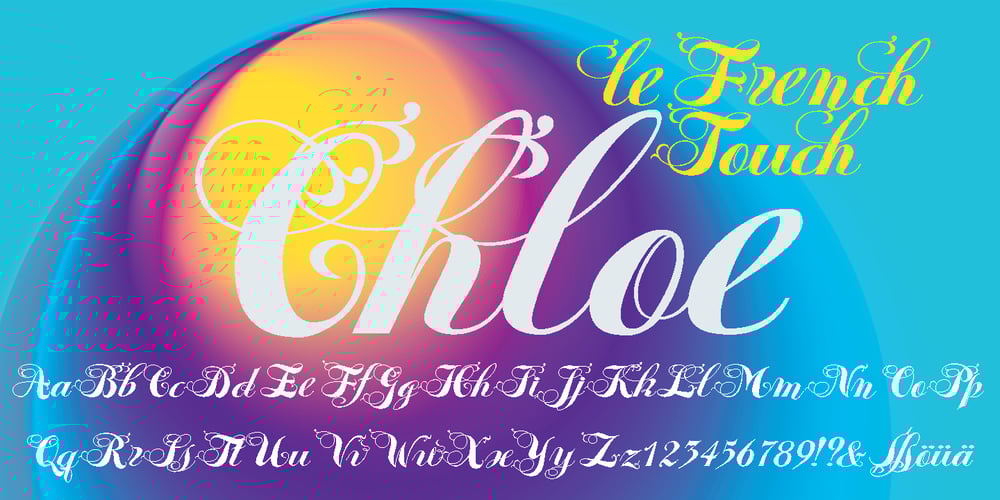
Chloe Font Family was designed by Gert Wiescher and published by Autographis. Chloe contains 1 styles and family package options. Chloe is a very dramatic script with high contrast between the up- and down-strokes. It is not really useful for long copy, but very good at short captions or as a decorative part of your layout.